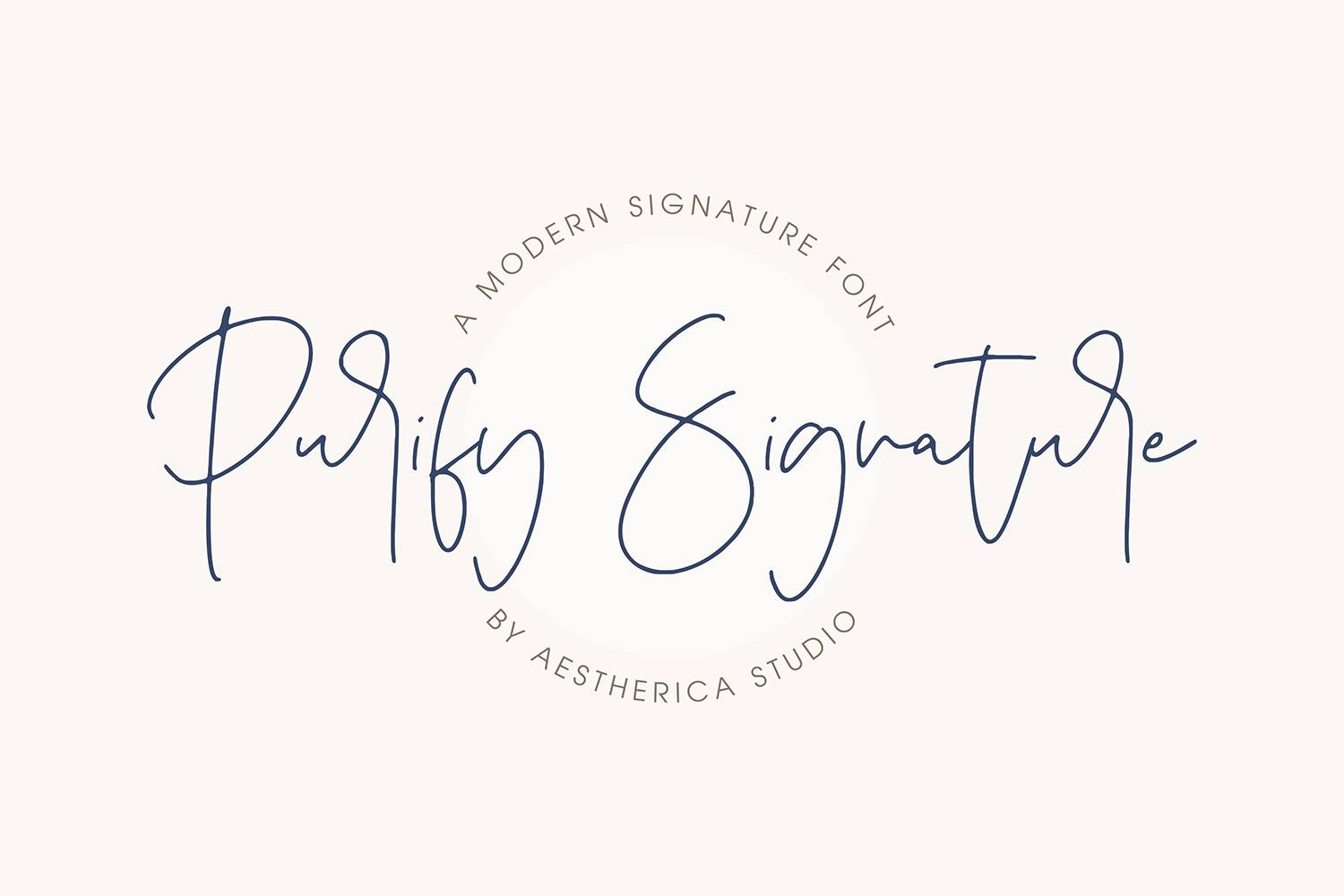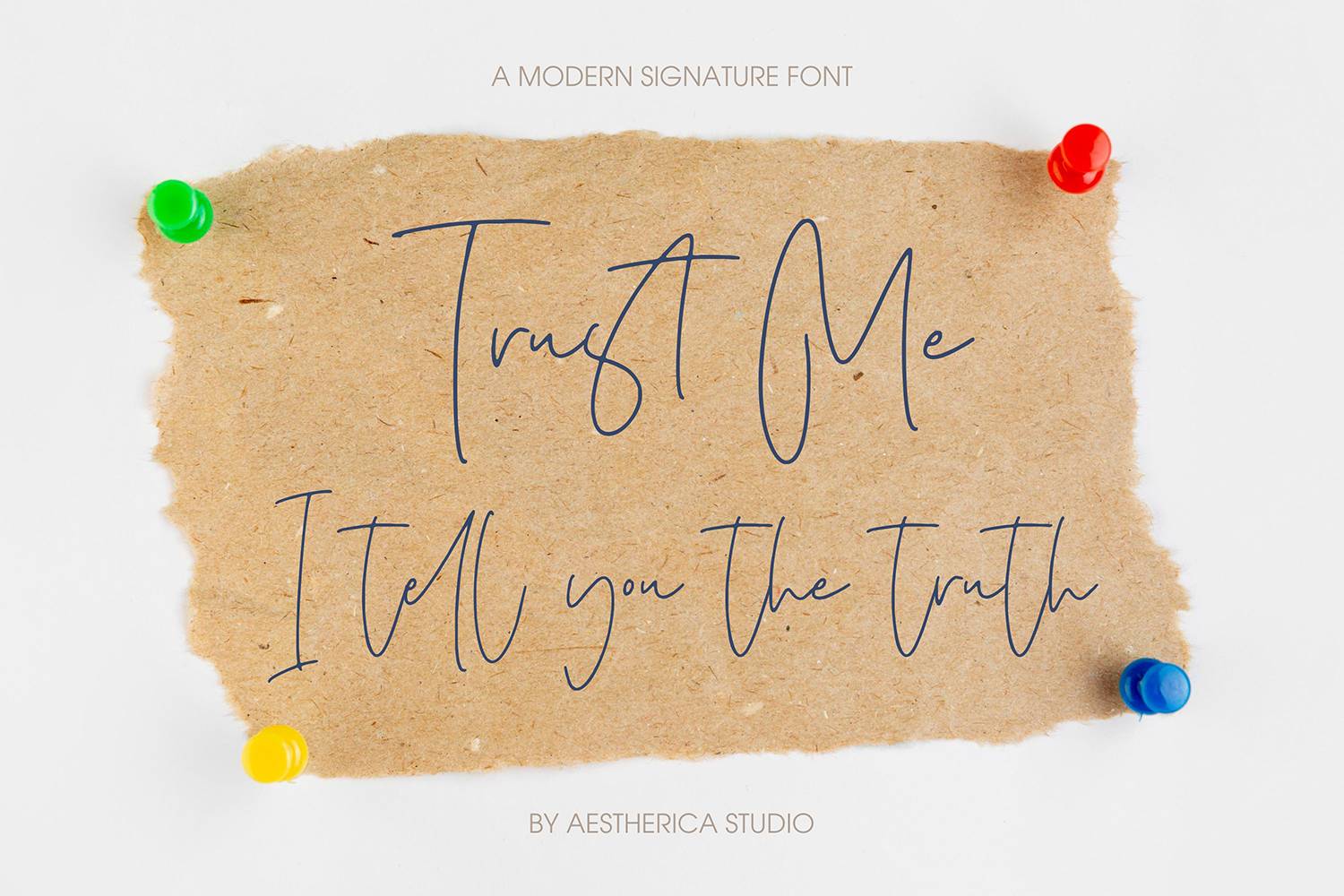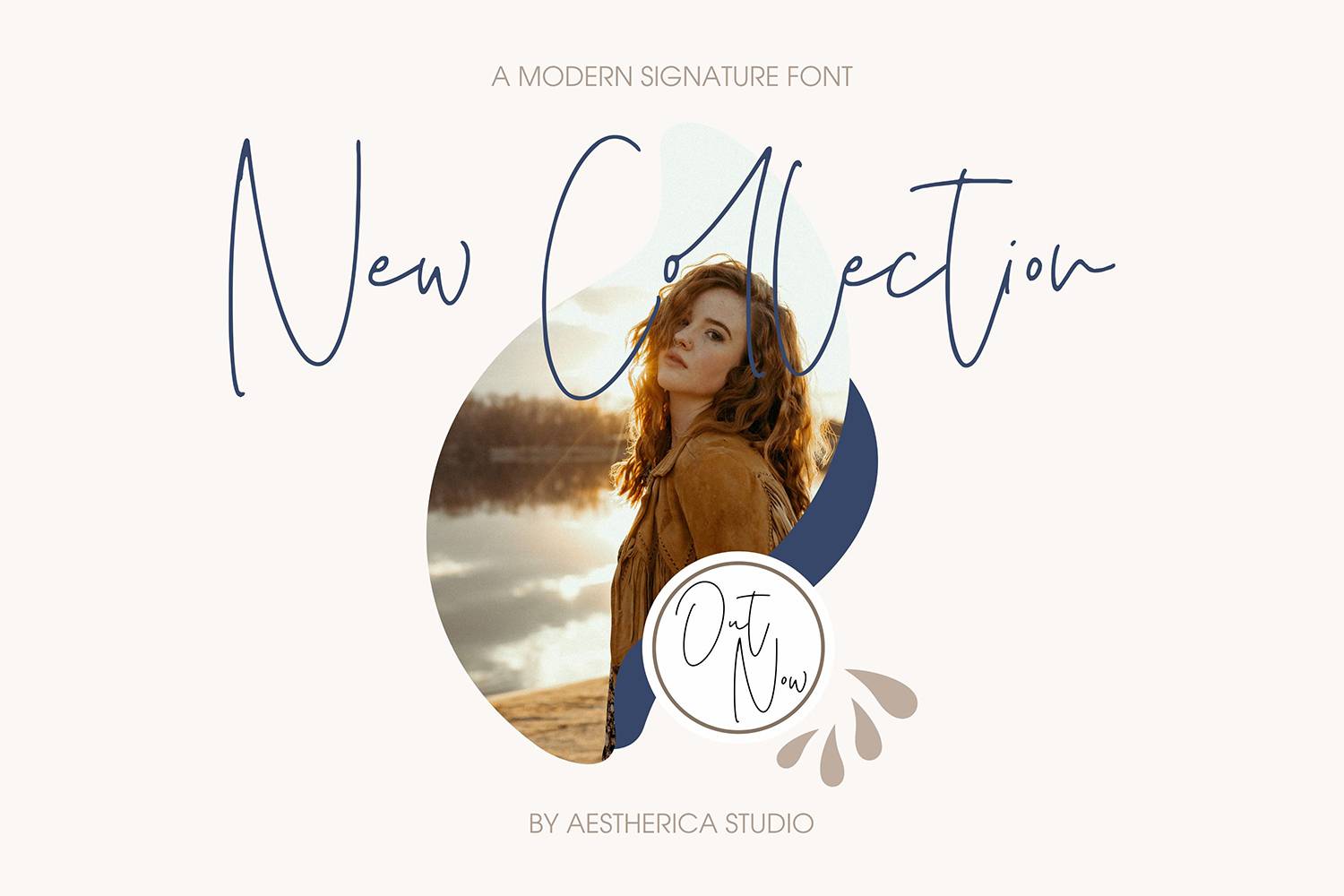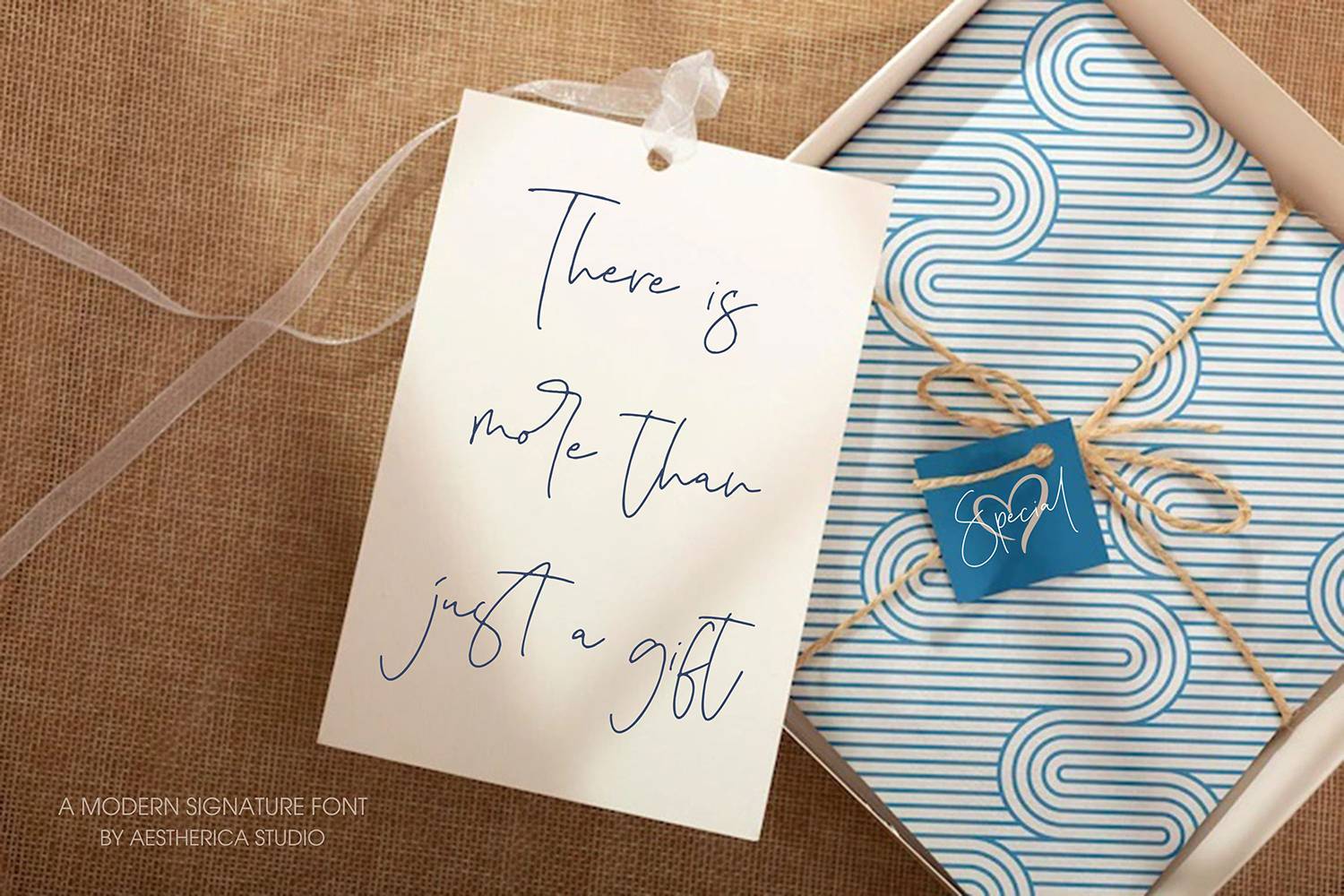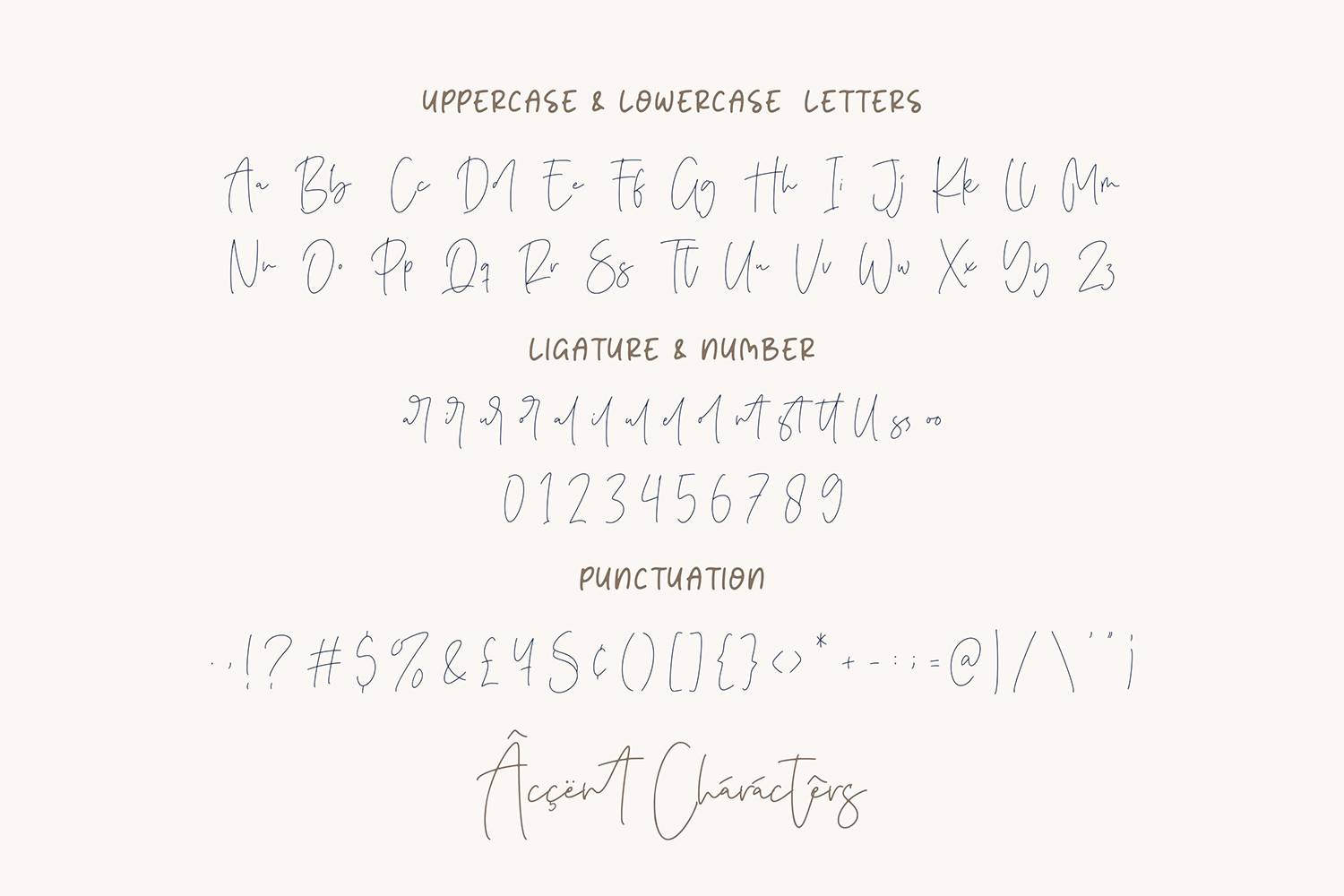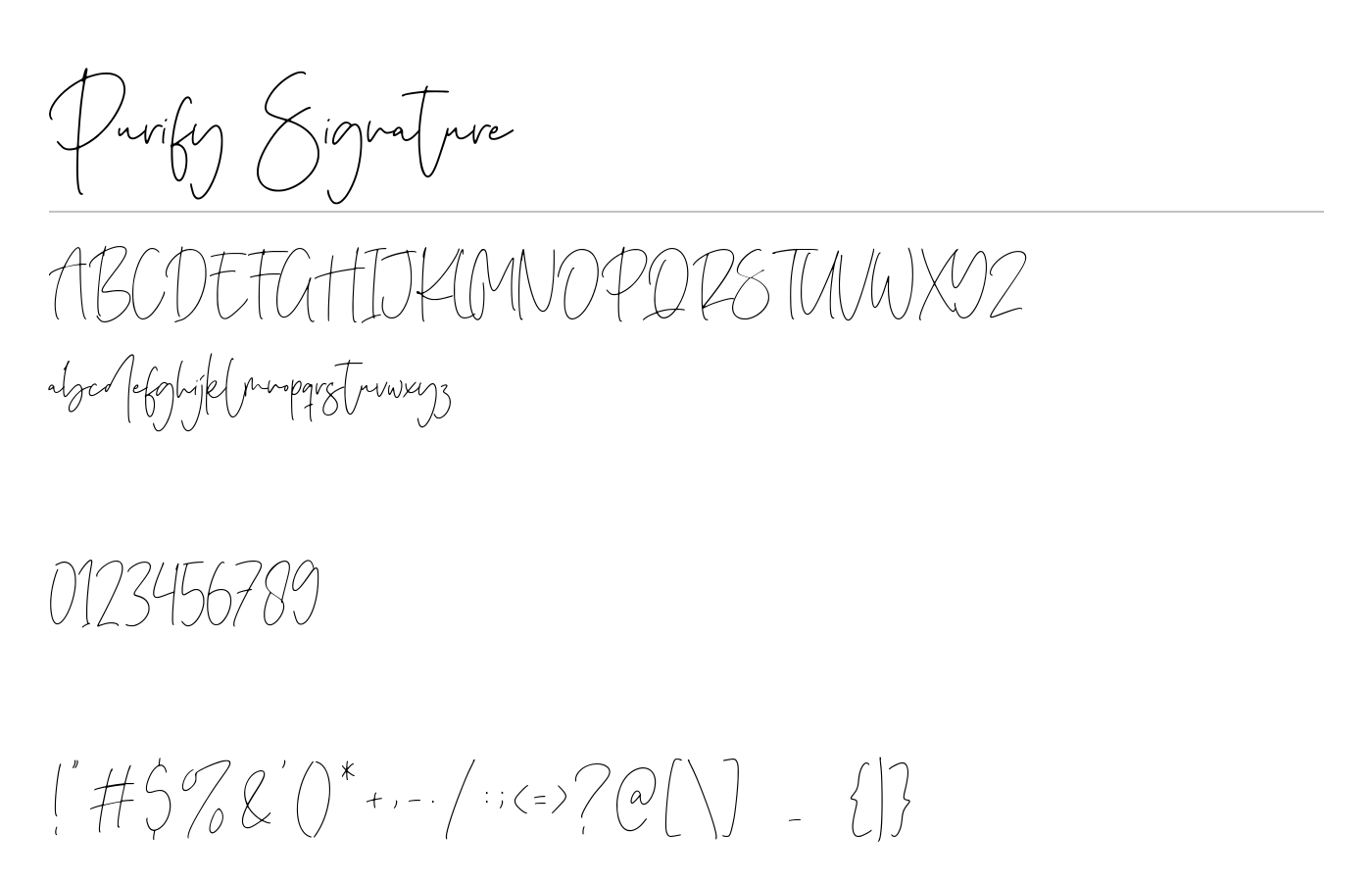
Purify Signature Font is a delicate and elegant handwritten script with a light, airy feel, characterized by slender, flowing lines and an organic, natural rhythm. Its tall, narrow letterforms with high contrast between thin strokes and subtle curves evoke a personal, intimate touch, making it perfect for luxury branding, invitations, and stylish logos. This font’s graceful style works beautifully where a sophisticated yet approachable look is desired, especially in fashion, beauty, and creative projects.
Purify Signature Font
About Purify Signature Font